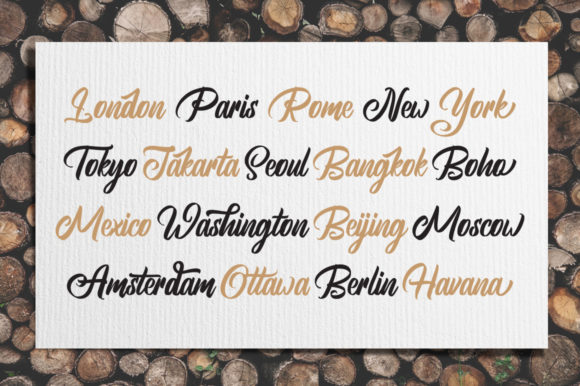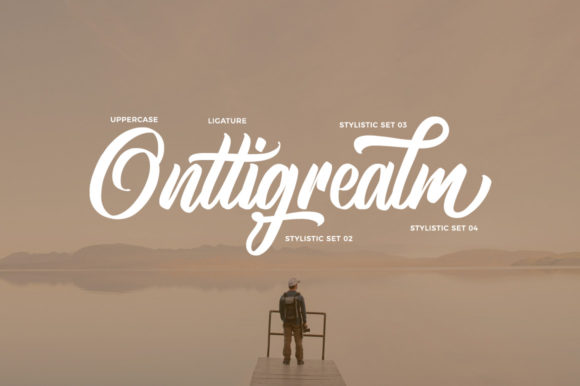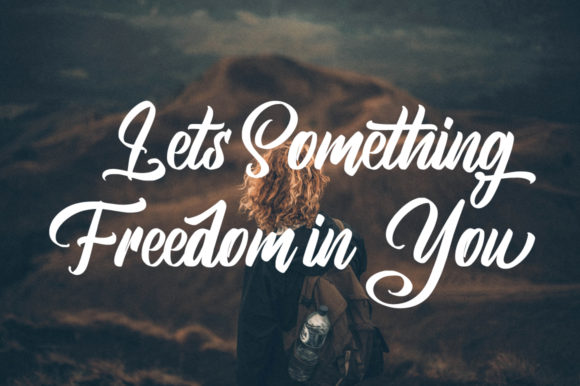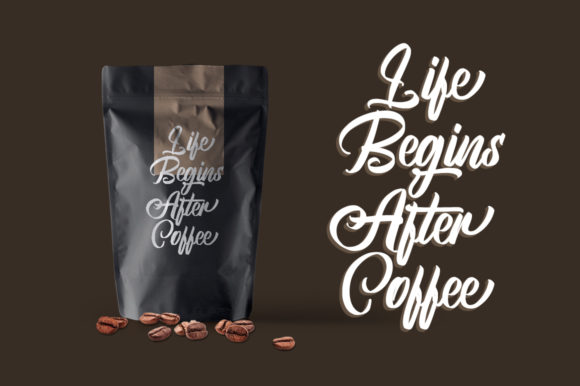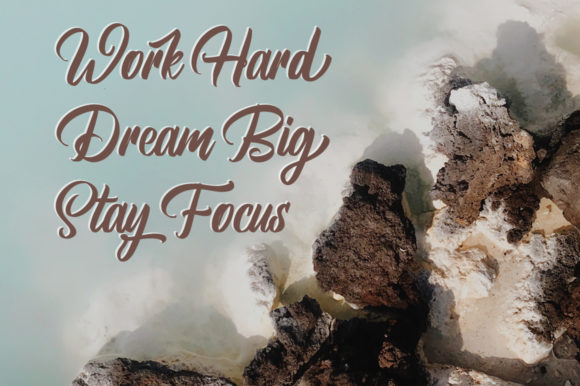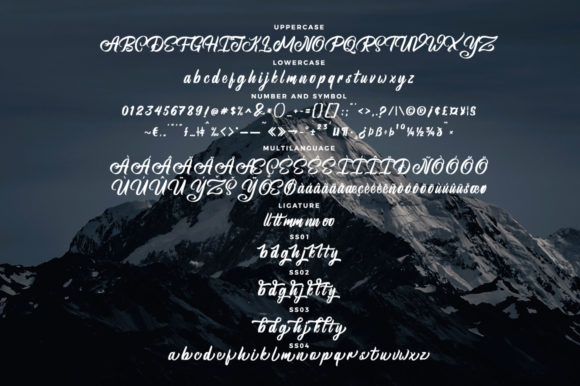
Brightsome Font: Adding a Touch of Romance to Your Crafting Projects
Brightsome is a friendly and modern script font that has been making waves in the design and crafting community. With its unique style and romantic touch, it’s no wonder why Brightsome has become a go-to font for crafters and designers looking to add a personal touch to their projects.
What is Brightsome Font?
Brightsome font is a carefully crafted script font that exudes warmth and friendliness. Its modern design makes it perfect for a wide range of crafting projects, from DIY cards and invitations to scrapbooking and journaling. The font’s unique style is characterized by its flowing curves and subtle imperfections, giving it a handmade feel that’s hard to resist.
Key Features of Brightsome Font
- Unique Style: Brightsome font boasts a distinctive style that sets it apart from other script fonts. Its elegant curves and subtle flair at the terminals make it perfect for adding a touch of sophistication to your projects.
- Romantic Touch: Brightsome font is designed to add a romantic touch to your crafting projects. Whether you’re creating a wedding invitation, a love letter, or a special gift, this font is sure to convey your emotions.
- Modern Design: Despite its classic feel, Brightsome font is a modern script font that is perfect for contemporary crafting projects. Its clean lines and flowing curves make it easy to read and visually appealing.
- Versatile: Brightsome font can be used for a wide range of crafting projects, from paper crafting to digital design. Its versatility makes it a great addition to any designer’s or crafter’s toolkit.
How to Use Brightsome Font in Your Crafting Projects
Using Brightsome font in your crafting projects is easy. Here are a few ideas to get you started:
- DIY Cards and Invitations: Add a personal touch to your cards and invitations with Brightsome font. You can use it to create beautiful wedding invitations, birthday cards, or thank-you notes.
- Scrapbooking: Brightsome font is perfect for scrapbooking. You can use it to add titles, captions, and journaling to your scrapbook pages.
- Journaling: Add a touch of elegance to your journal pages with Brightsome font. You can use it to write journal entries, create art journal pages, or add inspirational quotes.
- Digital Design: Brightsome font can also be used for digital design projects, such as creating social media graphics, blog posts, or digital invitations.
Tips for Getting the Most Out of Brightsome Font
Here are a few tips for getting the most out of Brightsome font:
- Experiment with Different Sizes: Brightsome font looks great in a variety of sizes. Experiment with different sizes to find the one that works best for your project.
- Pair it with Other Fonts: Brightsome font pairs well with other fonts, such as sans-serif fonts or serif fonts. Experiment with different font combinations to create a unique look.
- Use it for Titles and Headings: Brightsome font is perfect for titles and headings. Use it to add a touch of elegance to your projects.
- Don’t Be Afraid to Get Creative: Brightsome font is a versatile font that can be used in a variety of creative ways. Don’t be afraid to experiment and try new things.
Brightsome font is a beautiful and versatile script font that is perfect for adding a romantic touch to your crafting projects. With its unique style, modern design, and friendly feel, it’s no wonder why Brightsome has become a favorite among designers and crafters. Whether you’re creating DIY cards and invitations, scrapbooking, or journaling, Brightsome font is sure to add a touch of elegance and sophistication to your projects.